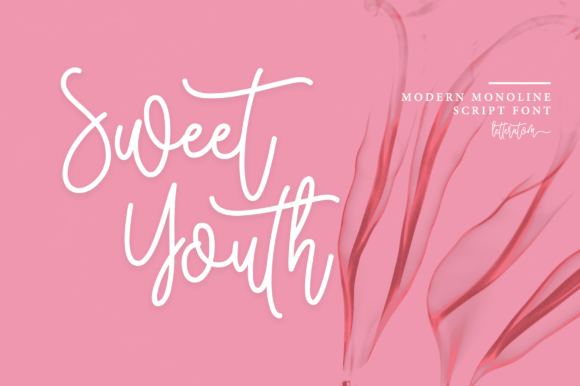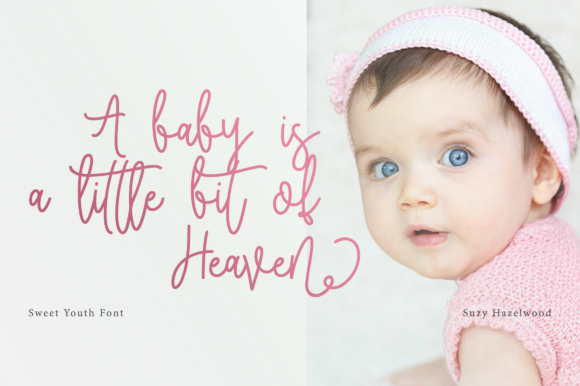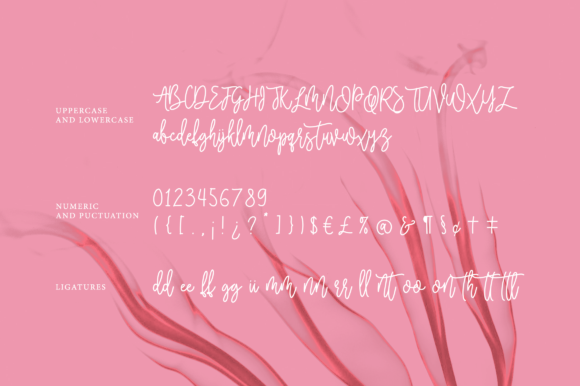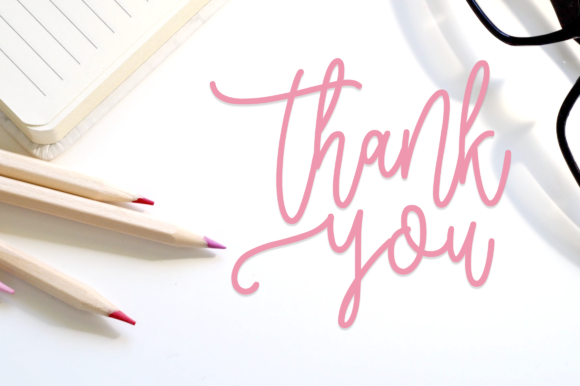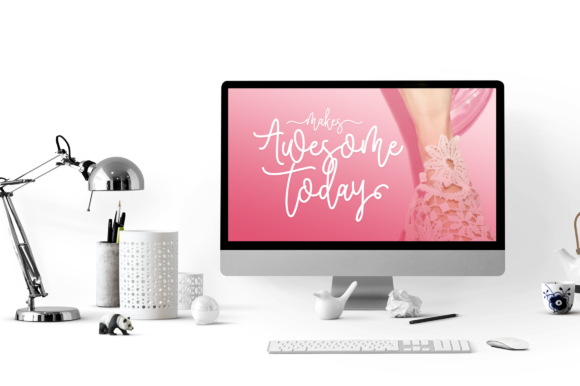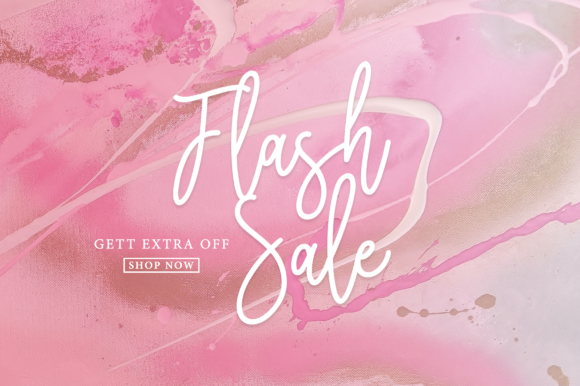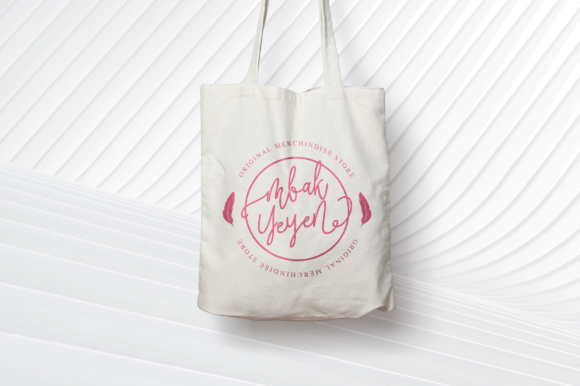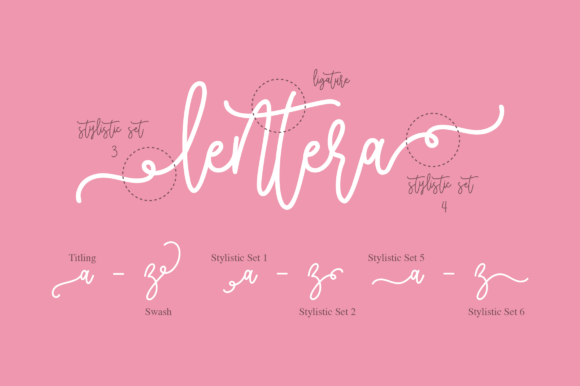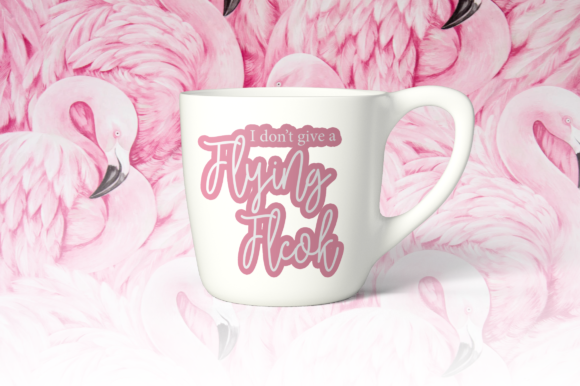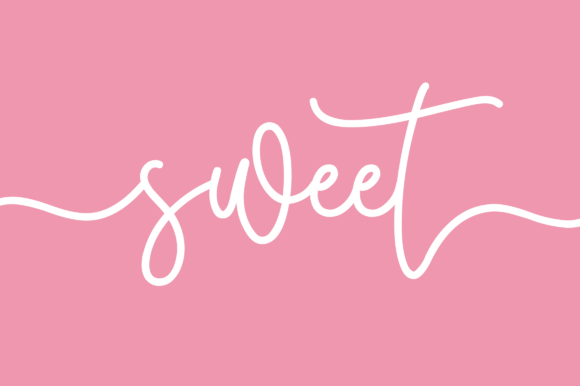
Sweet Youth Font
About Sweet Youth Font
Sweet Youth is a charming and authentic script with a simple feel. Use it to turn any design project into a stunning piece of art.